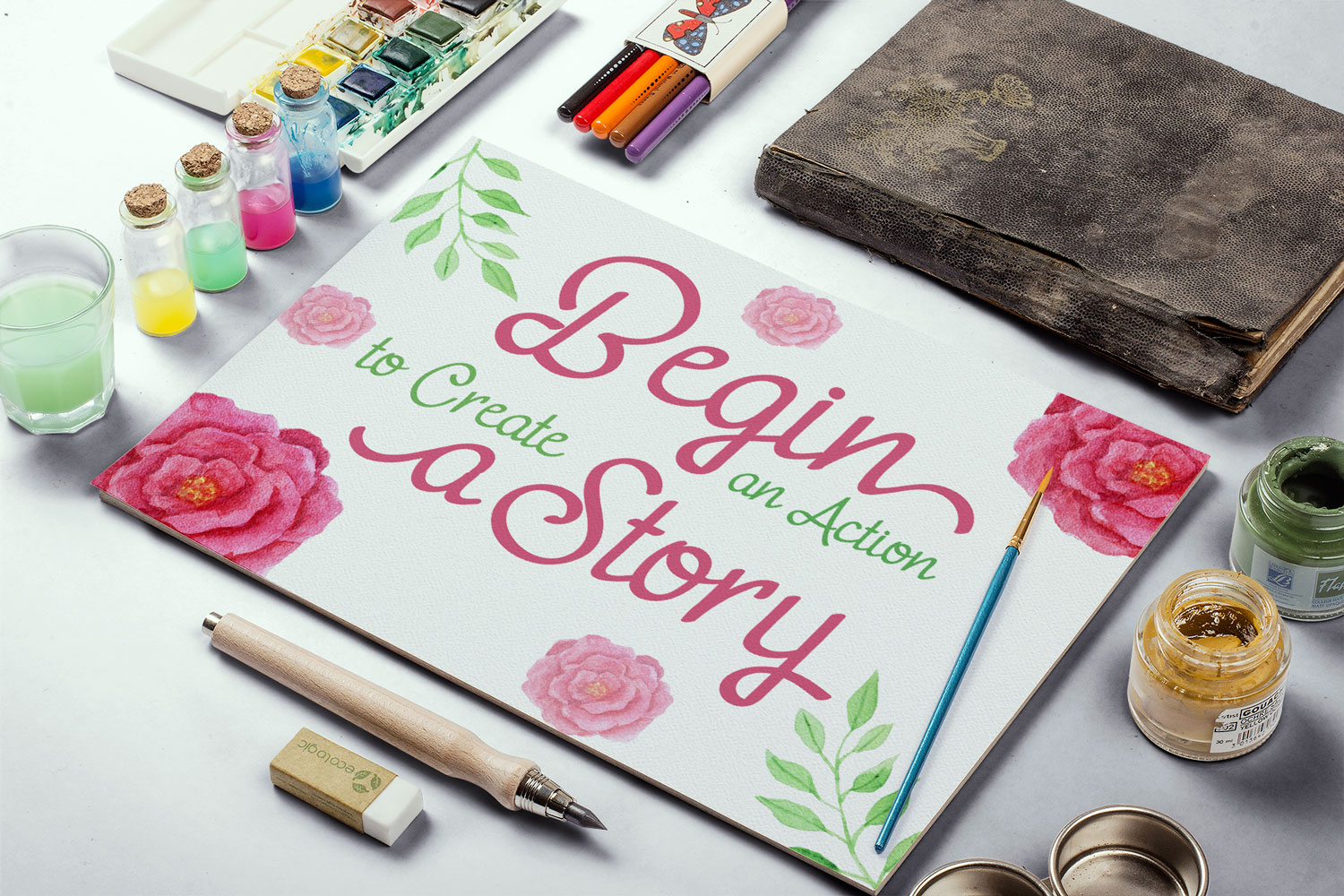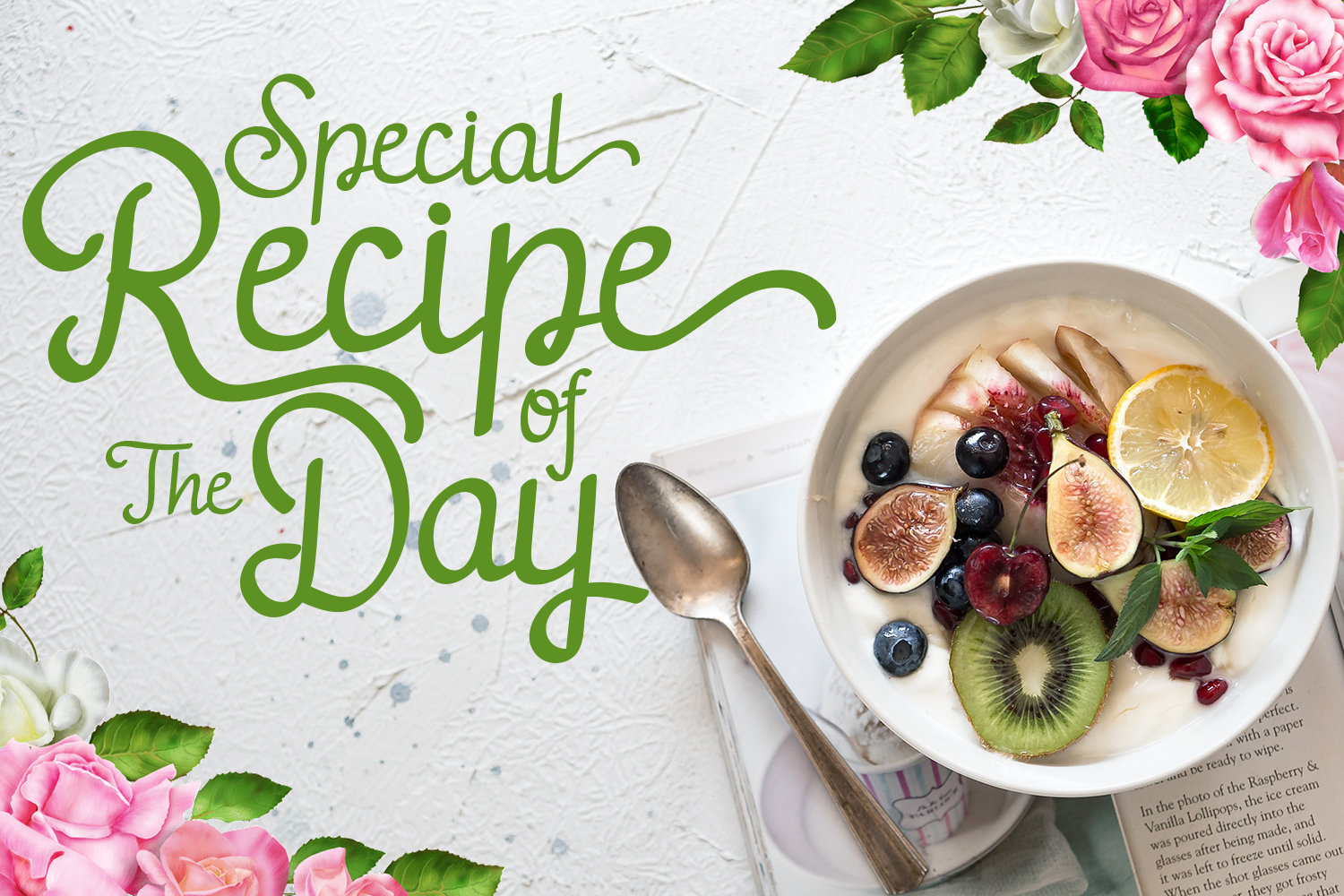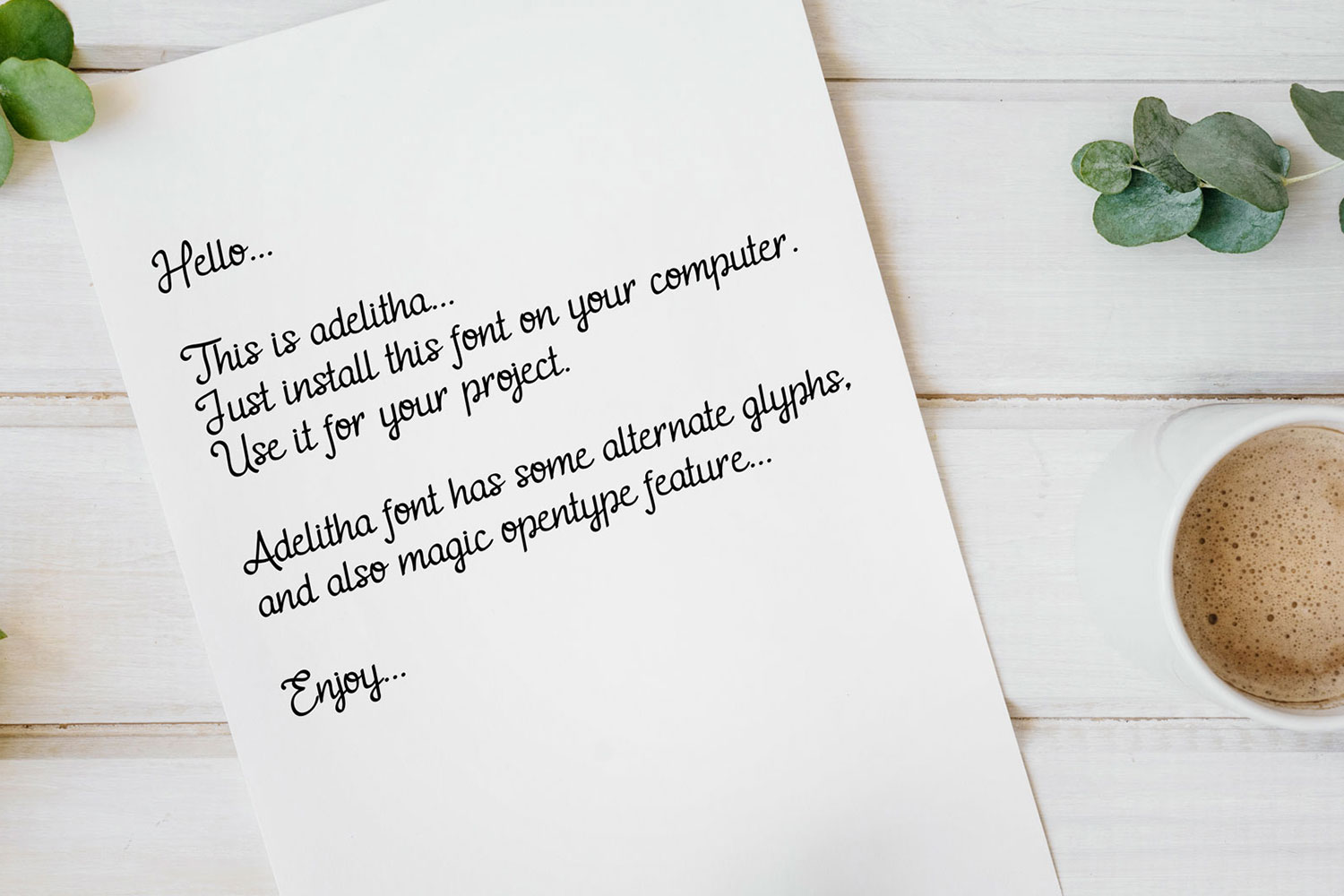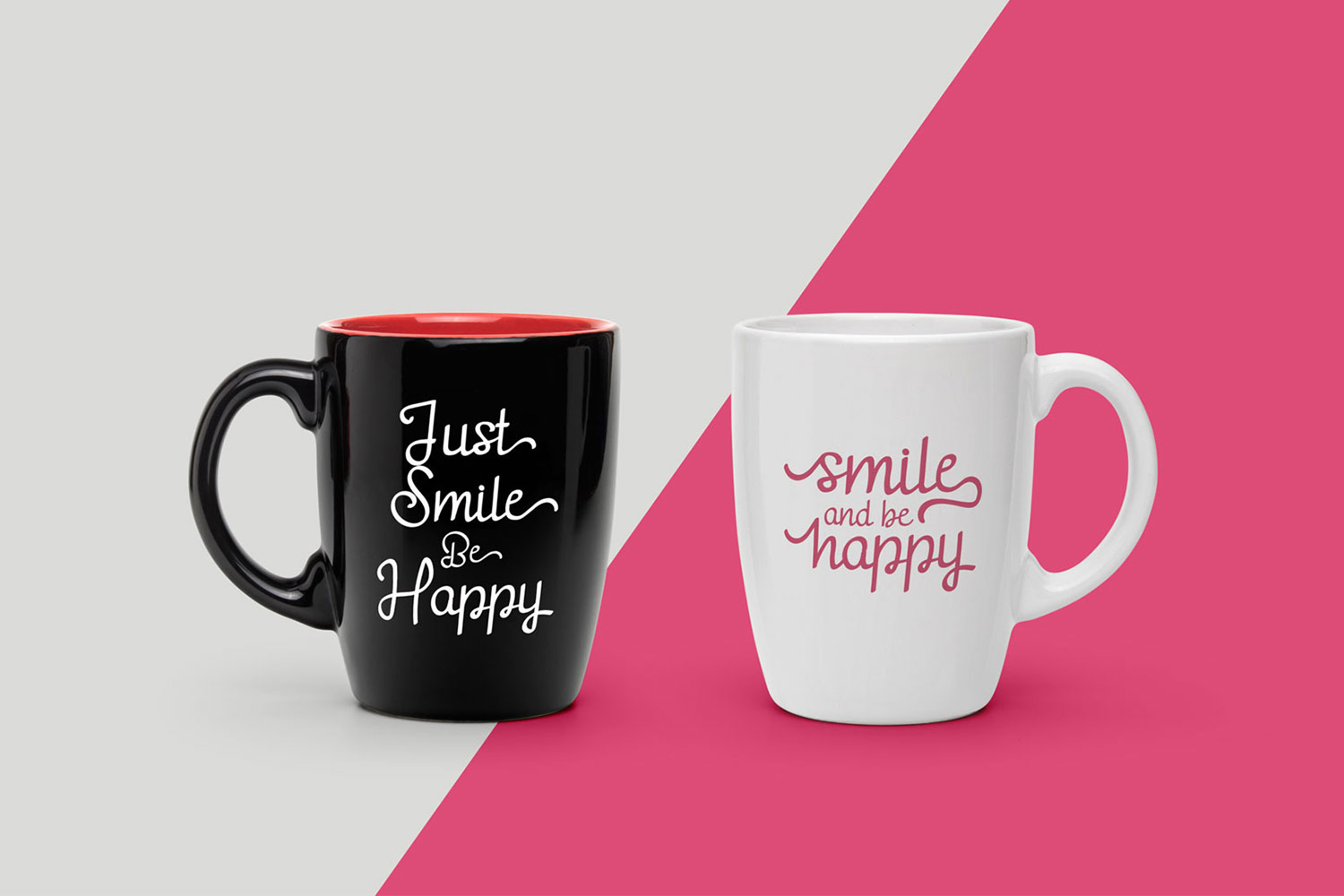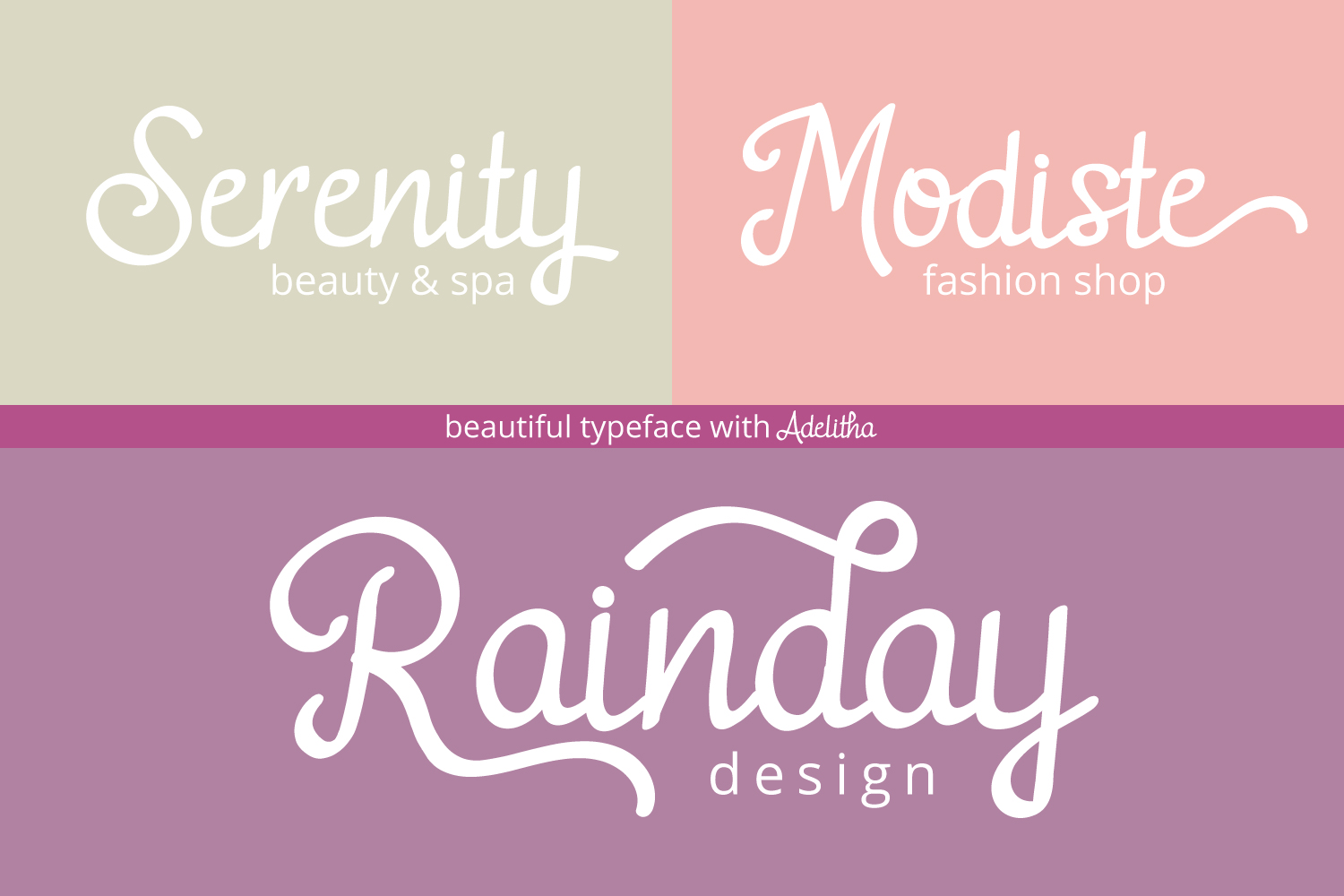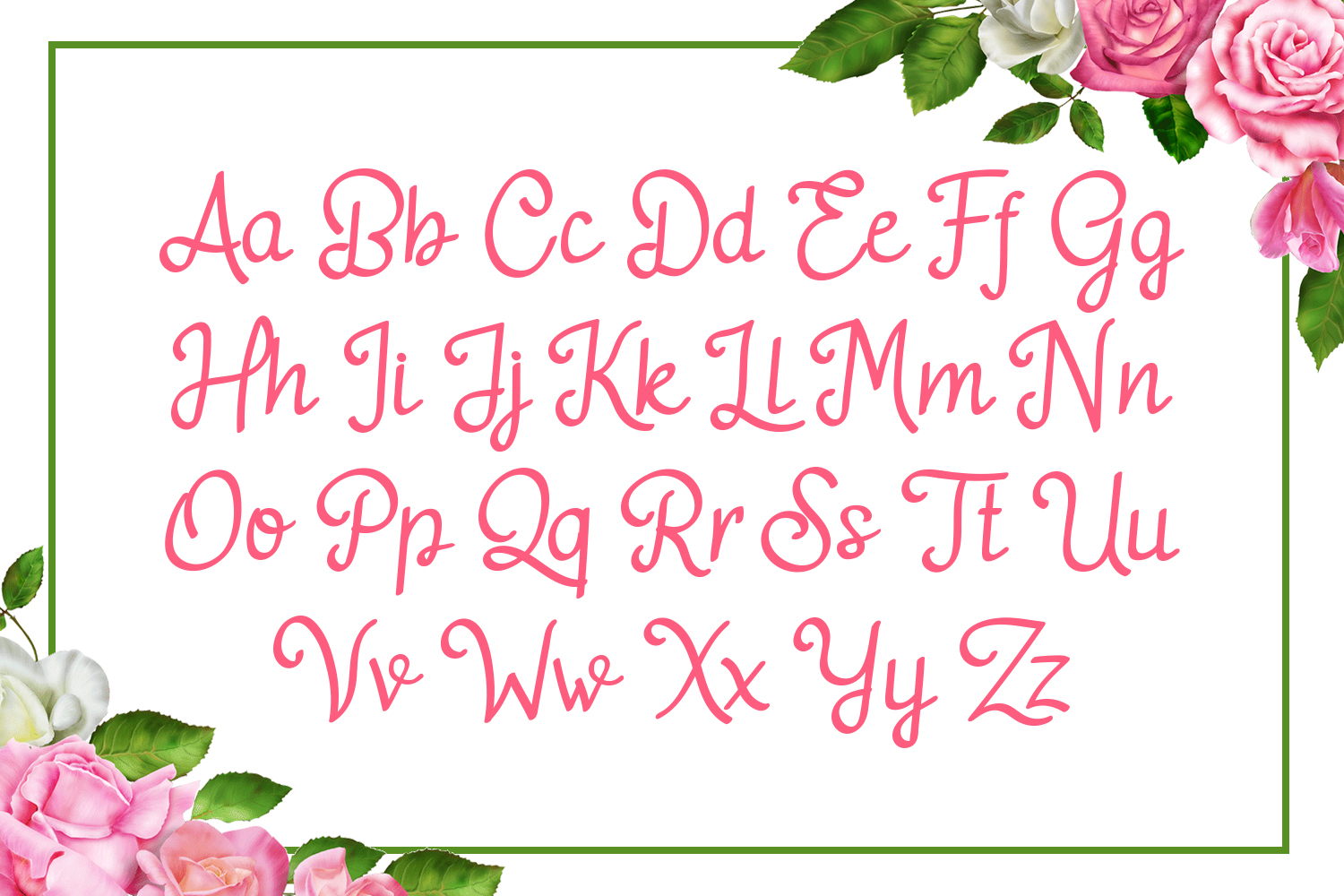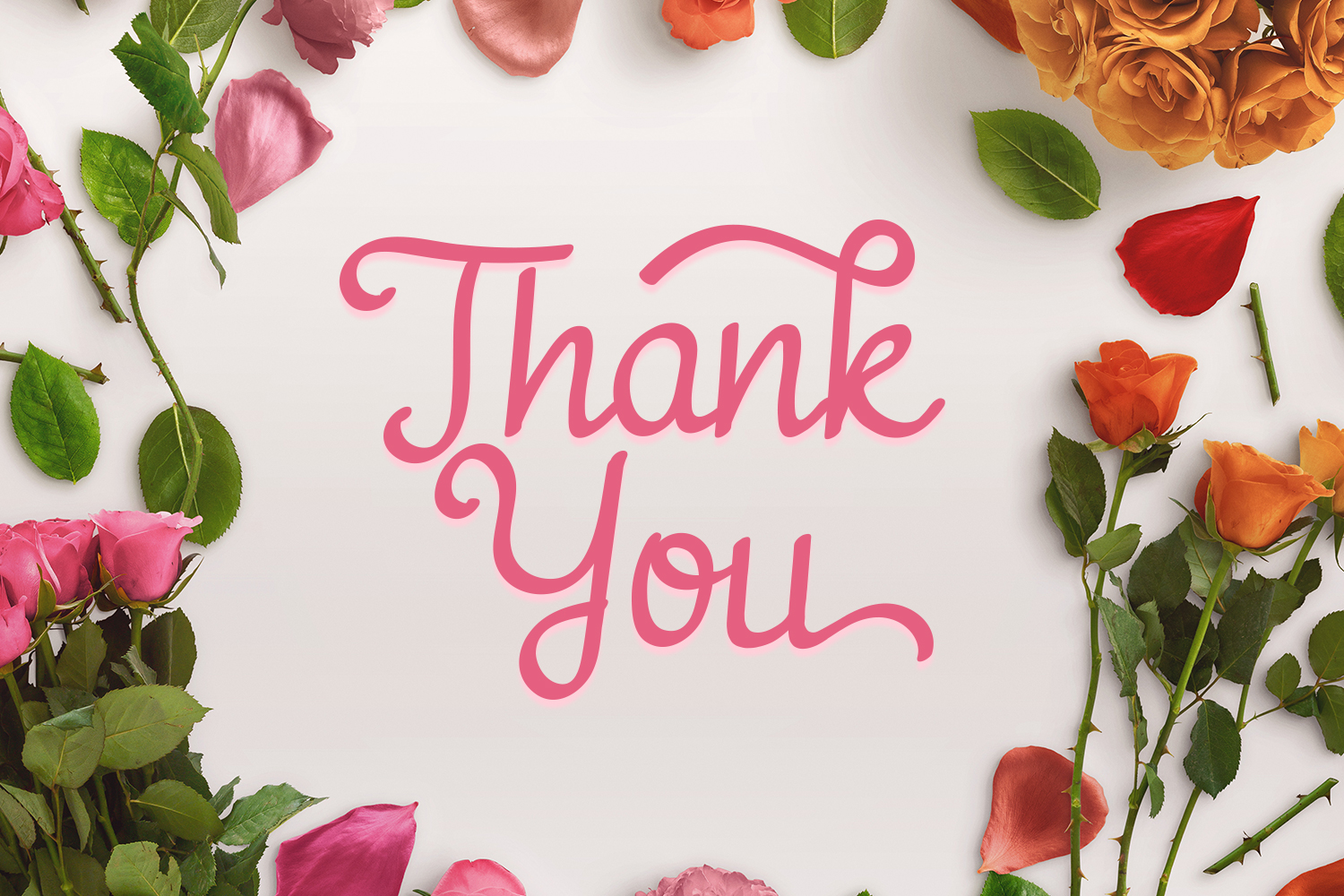
Adelitha Font
About Adelitha Font
Adelitha is a beautifully structured and crafted script font, suitable for display and headline design scapes. This is a wonderfully well weighted script, and is legible without compromising on style.